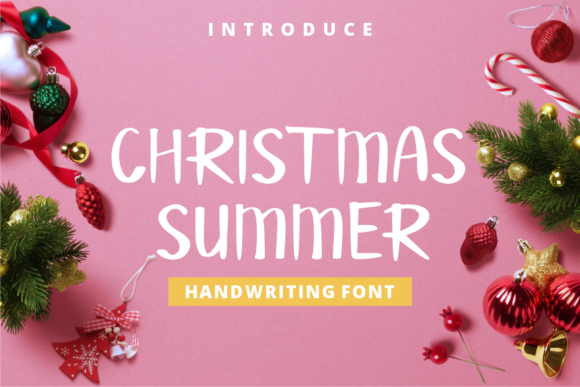
Behold the enchanting Christmas Summer Font, a captivating sans serif creation that will ignite your imagination and transport your designs to a realm of natural beauty. Step into a world where authenticity and artistry intertwine, where every letter dances with grace and charm.
Crafted meticulously by the skilled hands of alonkelakon, this font is a testament to the power of organic expression. Its flowing lines and playful curves evoke the carefree spirit of summer, while its solid structure lends an air of timeless elegance.
Unleash the potential of Christmas Summer in your logotype designs, and let your brand's message radiate with a touch of individuality. Elevate your typography to new heights, crafting headlines that captivate and body text that flows with effortless grace.
Immerse yourself in the boundless possibilities of branding with Christmas Summer. Create logos that leave a lasting impression, business cards that exude professionalism, and marketing materials that ignite curiosity.
Transform your designs into works of art with Christmas Summer, the perfect font for clothing and apparel. Let your T-shirts, hoodies, and accessories speak volumes, capturing the essence of effortless style and creativity.
With Christmas Summer as your creative companion, the world of design becomes your playground. Explore the depths of your imagination and let your artistic vision soar. Embrace the allure of organic beauty and make a statement that resonates with authenticity and wonder.